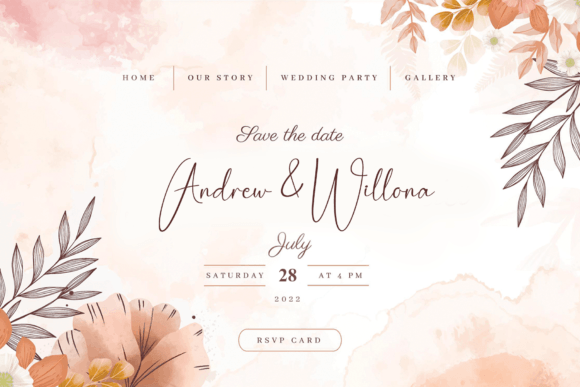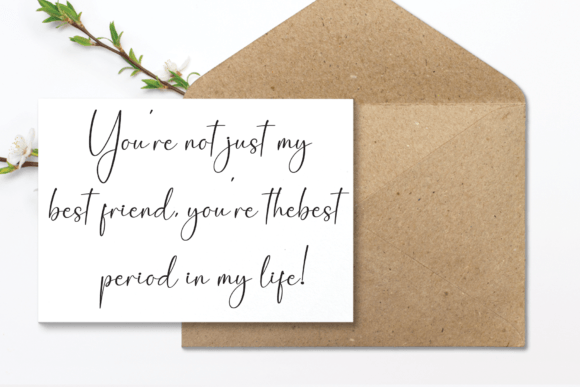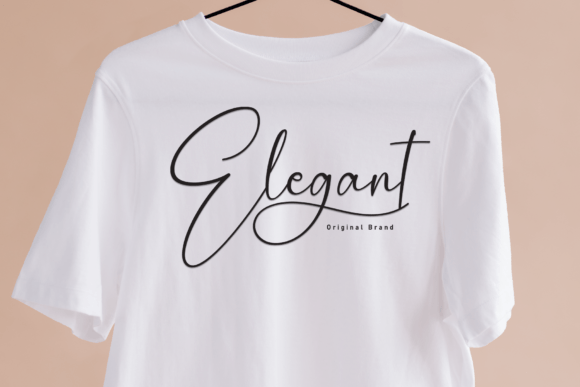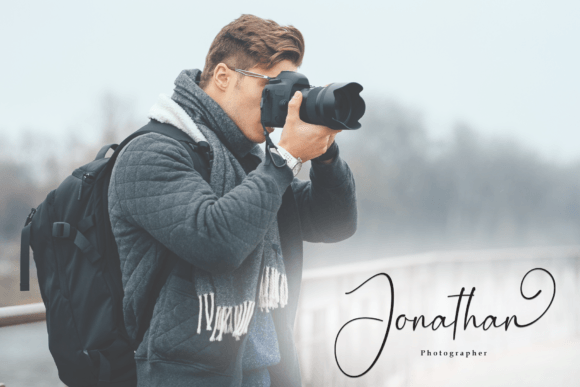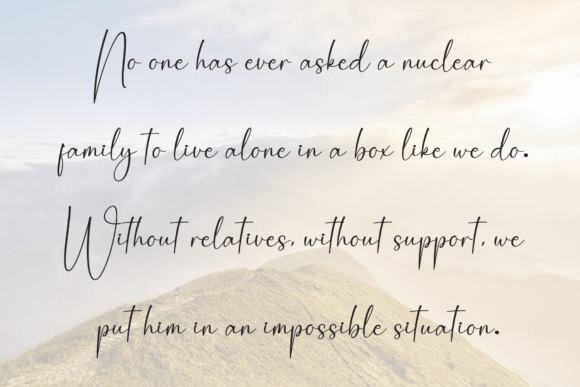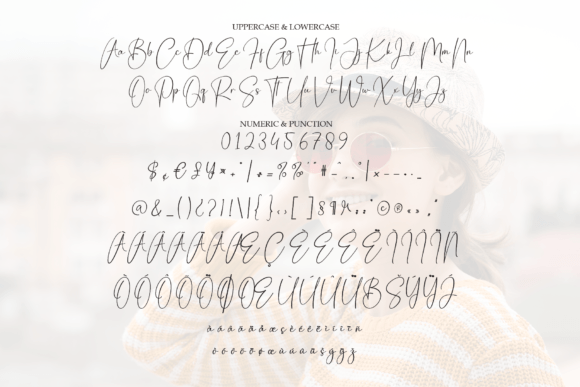
Introduction to Calistha Calligraphy Font
Calistha Calligraphy is a magical script font carefully created with a touch of elegance.
Key Features of Calistha Calligraphy Font
Why Choose Calistha Calligraphy Font?
Calistha Calligraphy Font offers exceptional quality and versatility, making it a valuable addition to your design toolkit. Whether you’re creating for personal projects or commercial use, Calistha Calligraphy Font delivers professional results.